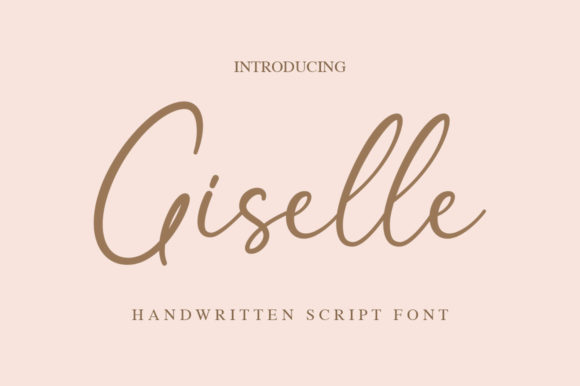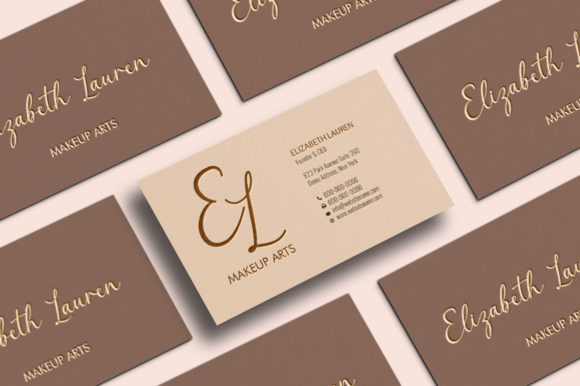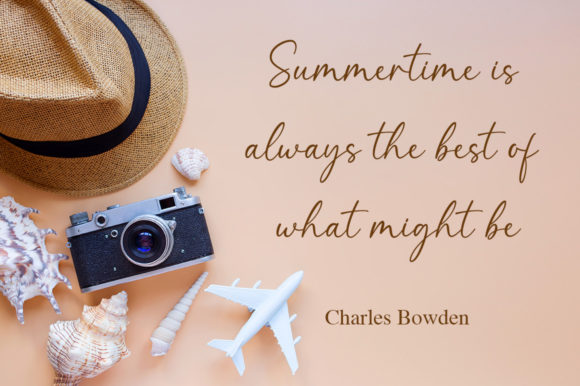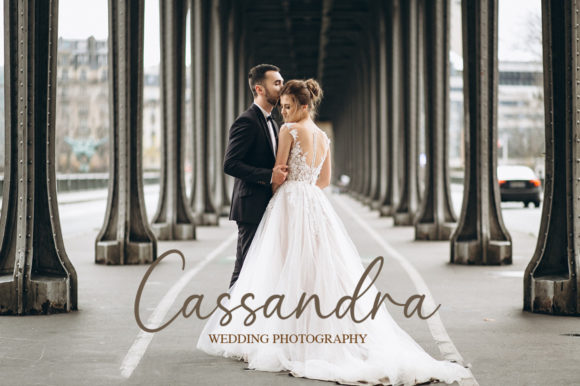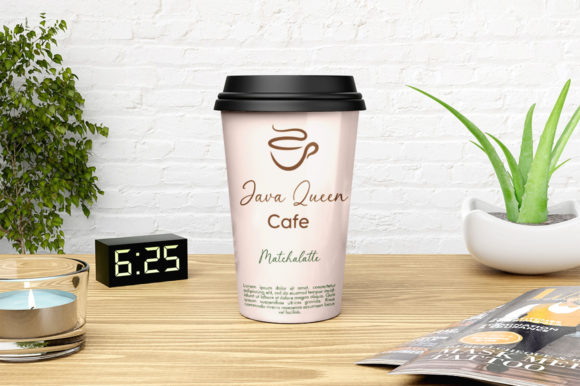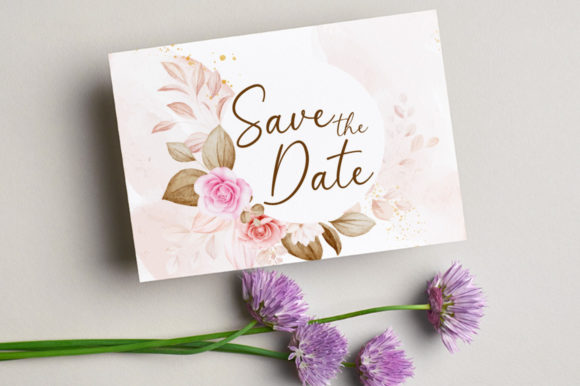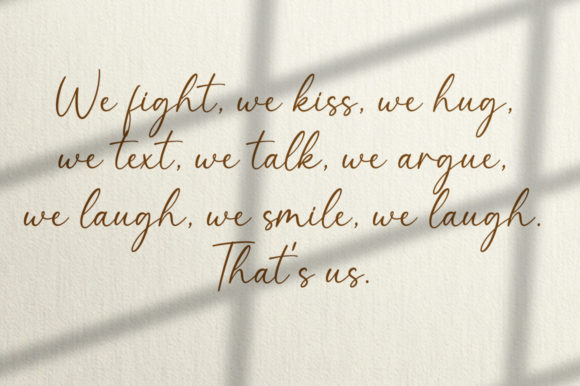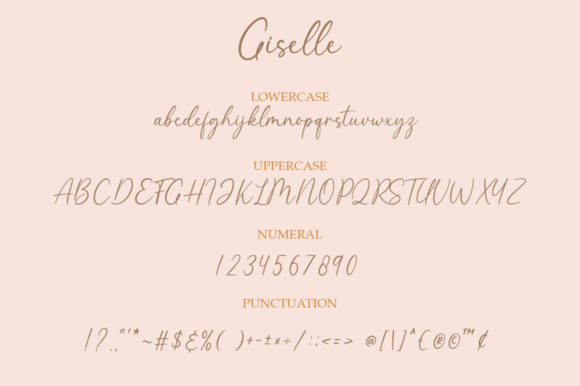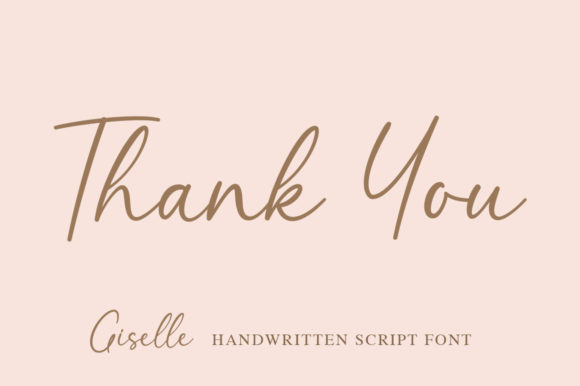
Giselle Font
About Giselle Font
Giselle is a thin lettered, lovely and fashionable script font. Fall in love with its well balanced and incredibly versatile style, and use it to create spectacular designs!